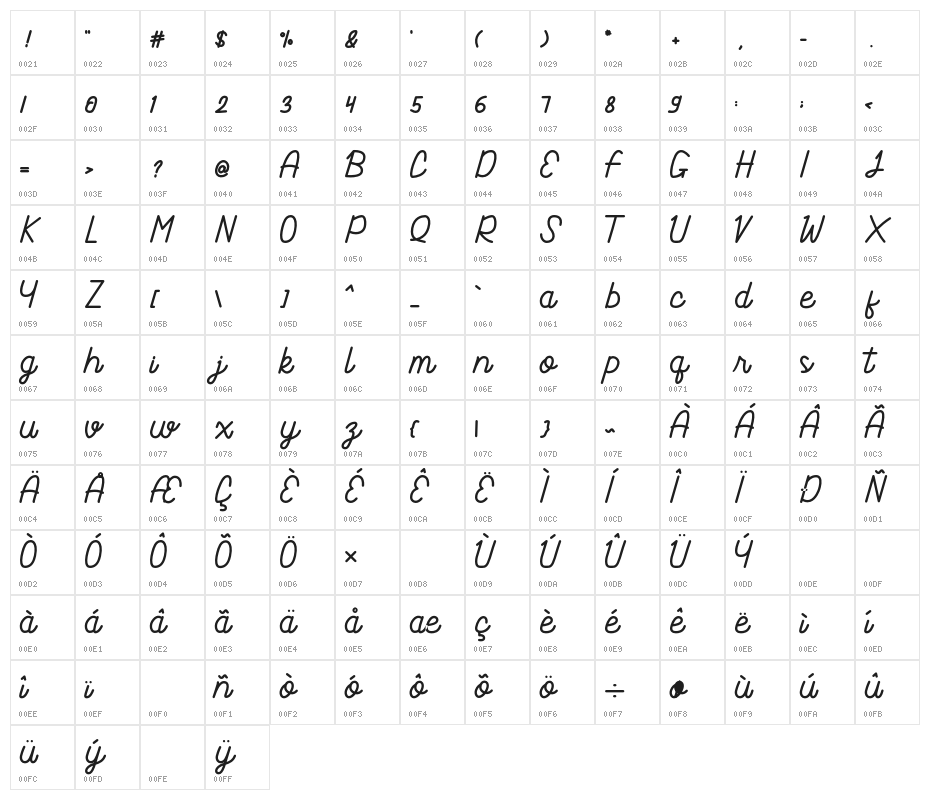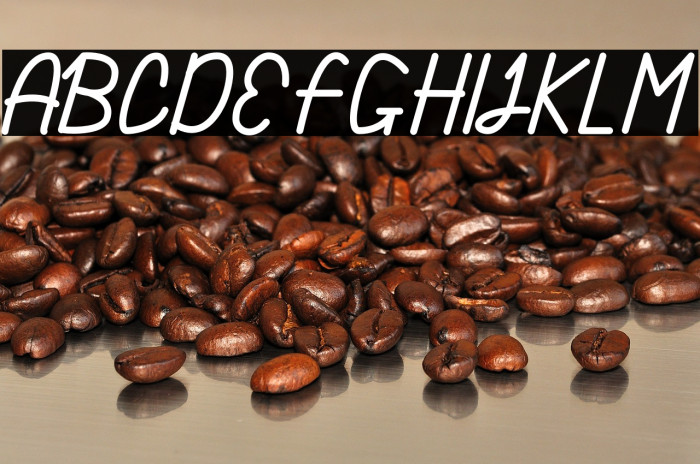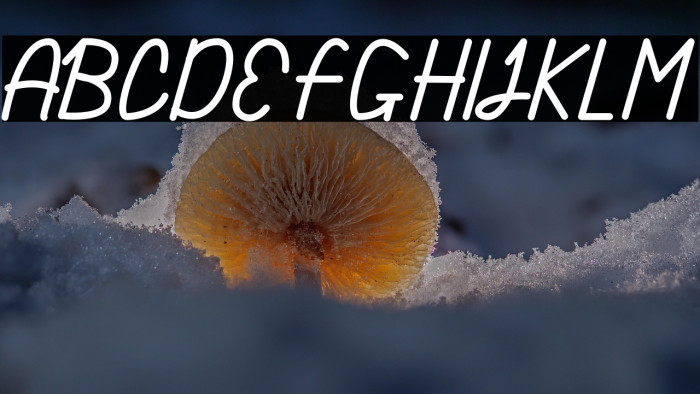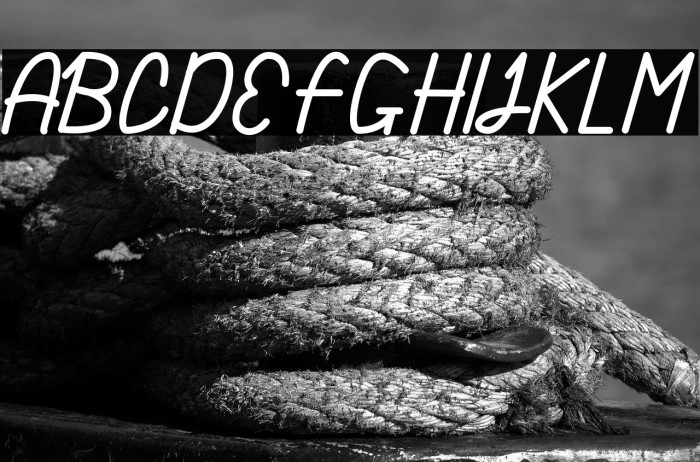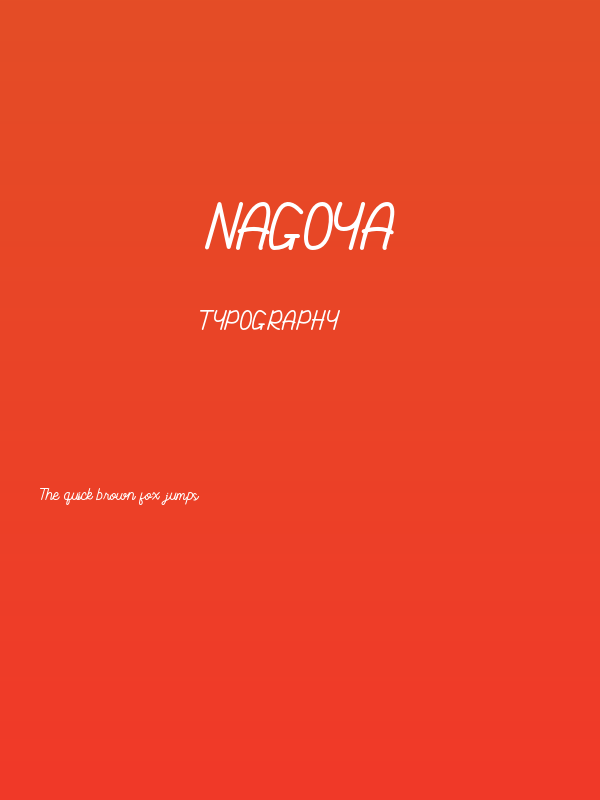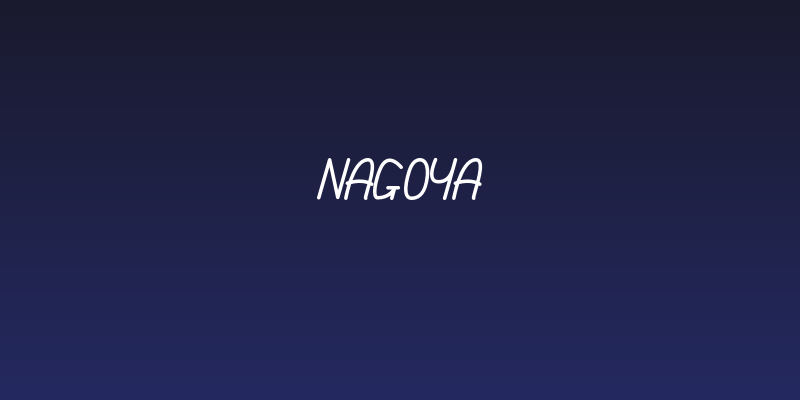
Nagoya Font
Nagoya Description
This font features a smooth, flowing script style that mimics natural handwriting. The uppercase letters are slightly slanted and maintain a consistent height, while the lowercase letters exhibit a more pronounced slant with elegant loops and curves. The numerals are clear and easy to read, maintaining the same fluid style as the letters. Special characters are well-integrated, with a playful yet sophisticated appearance. The overall design is cohesive, making it suitable for projects that require a personal touch.
| Use Case | Logos, Invitations, Greeting cards |
| Proposed Projects | Ideal for invitations, greeting cards, personal branding, and creative projects that require a handwritten touch. |